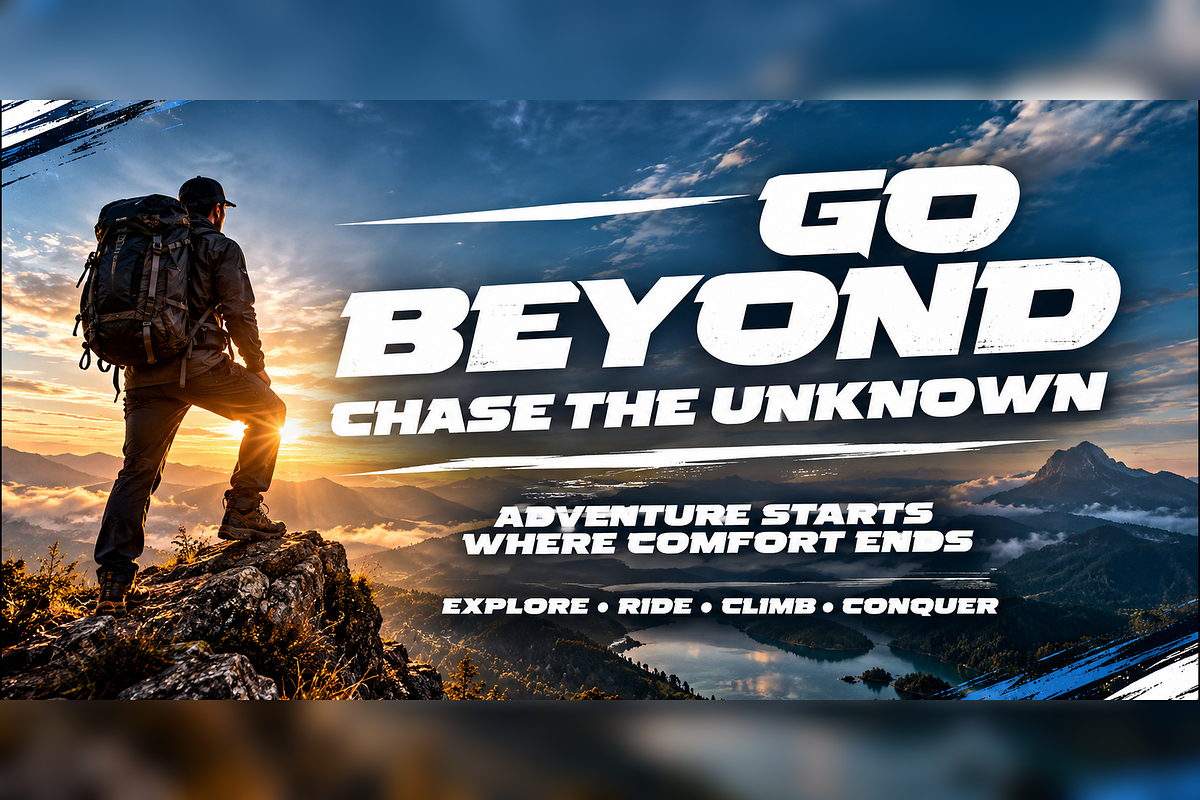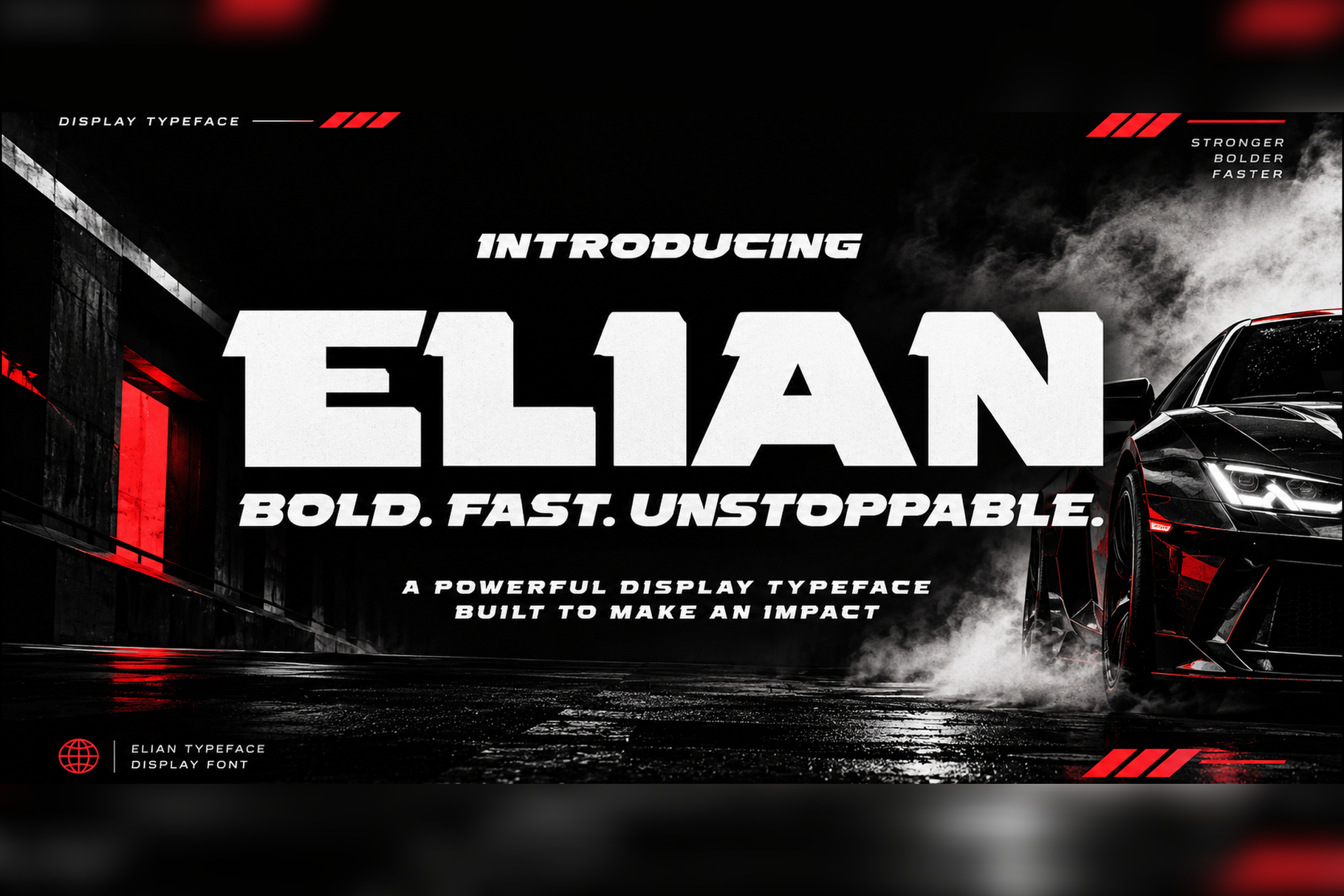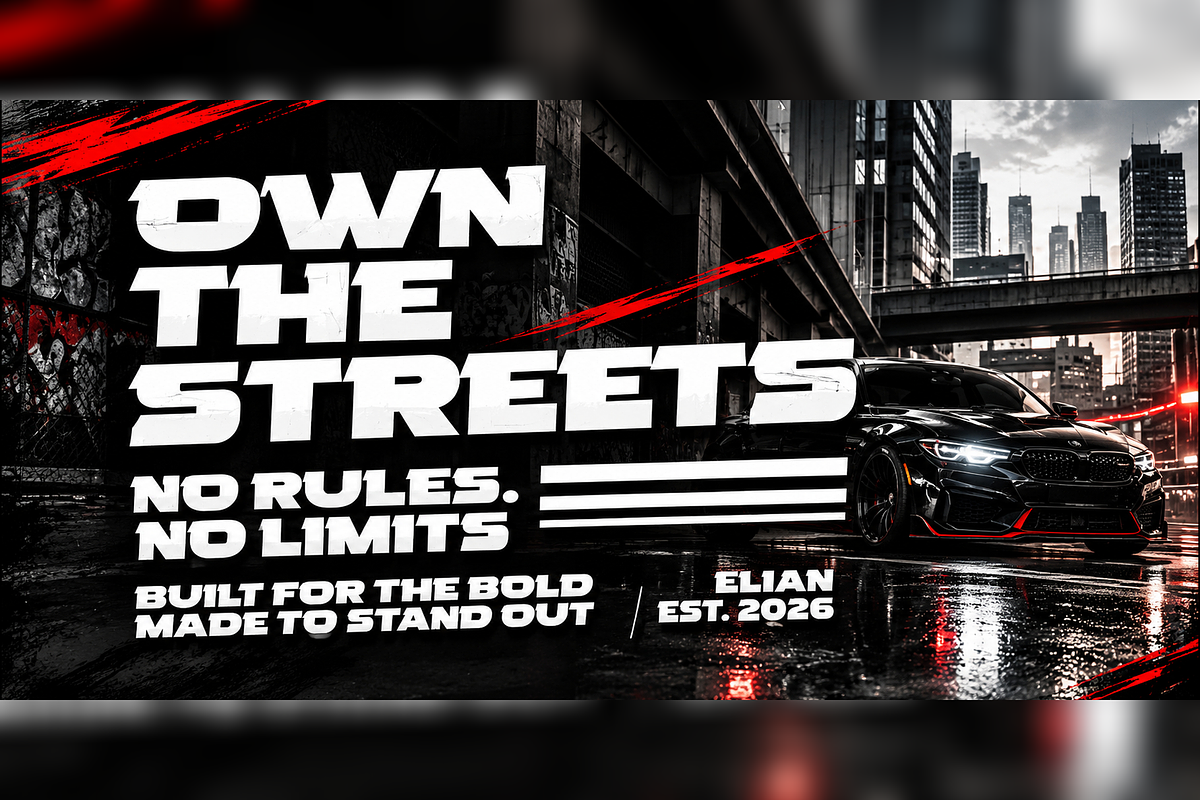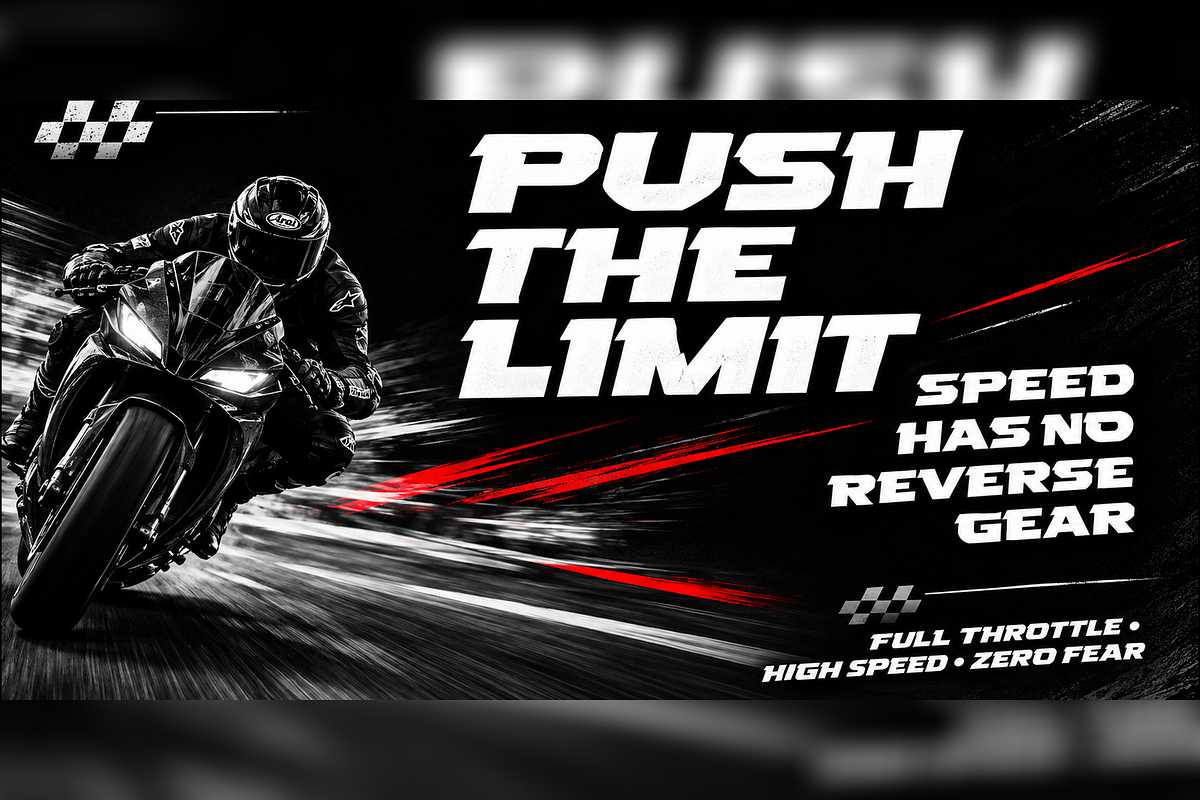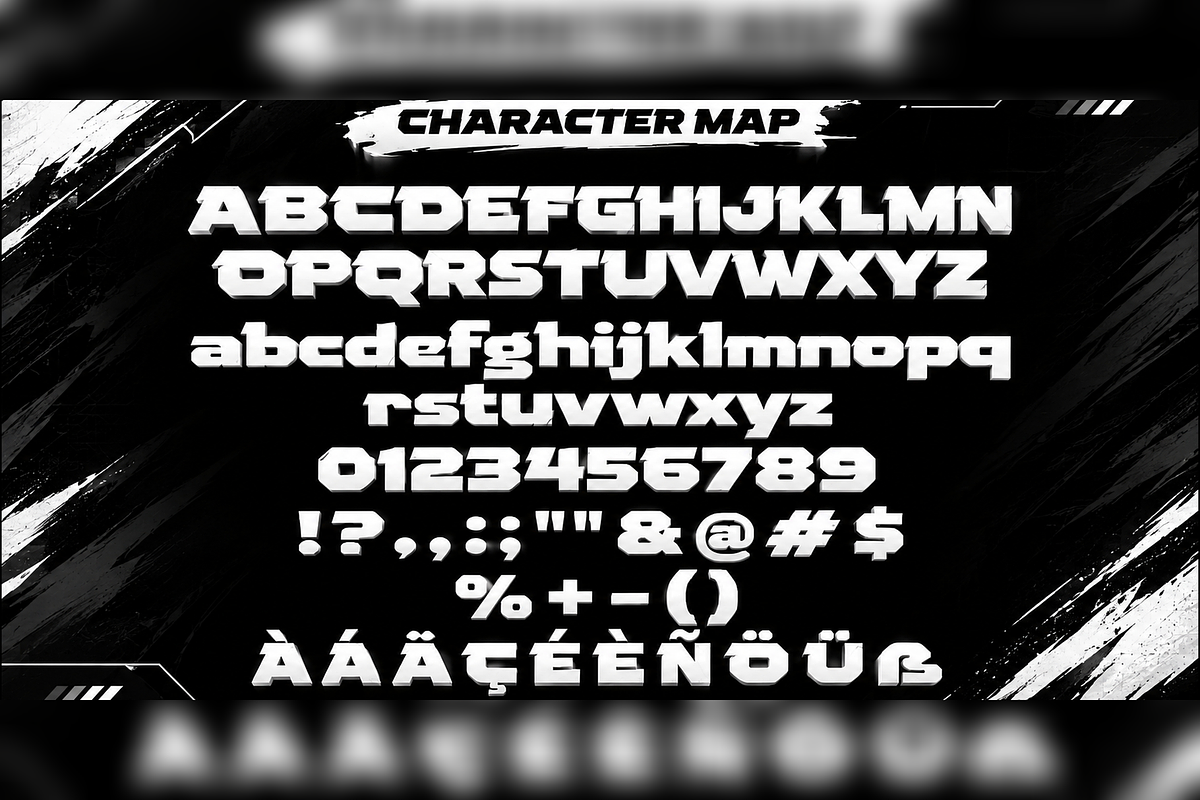
Elian Bold Futuristic Display Font
ELIAN is a bold futuristic display font featuring powerful geometric forms, sharp cuts, and a distinctive sci-fi aesthetic. Its heavy construction and angular details create a strong visual presence while maintaining a clean, modern character. Designed to stand out, ELIAN is perfect for logos, gaming graphics, posters, sports branding, technology projects, headlines, album artwork, and eye-catching social media designs.
Its unique letterforms combine a futuristic attitude with a bold industrial feel, making ELIAN an excellent choice for projects that need a strong, energetic, and contemporary visual identity.
Regular & Slant